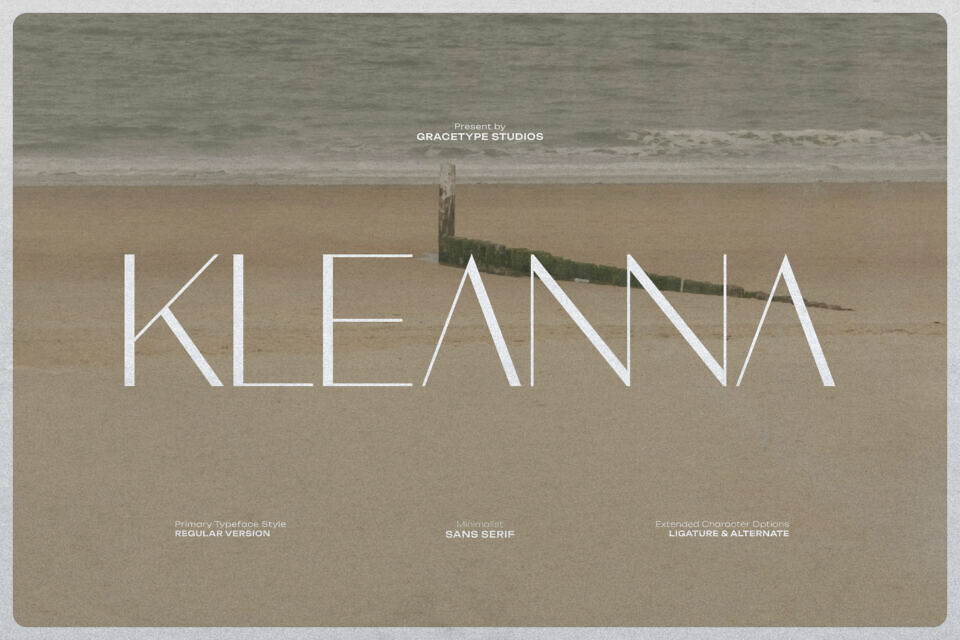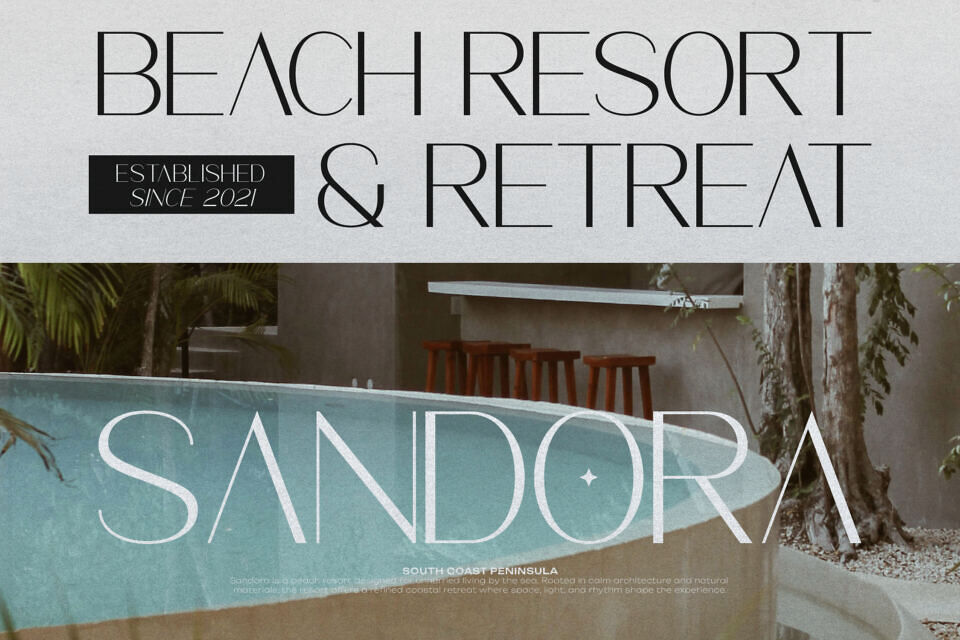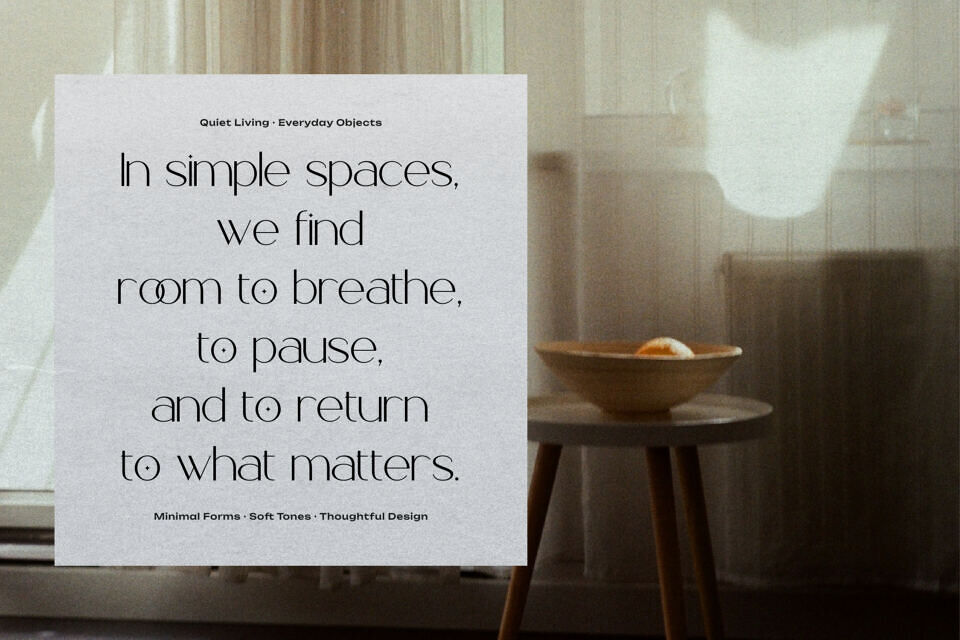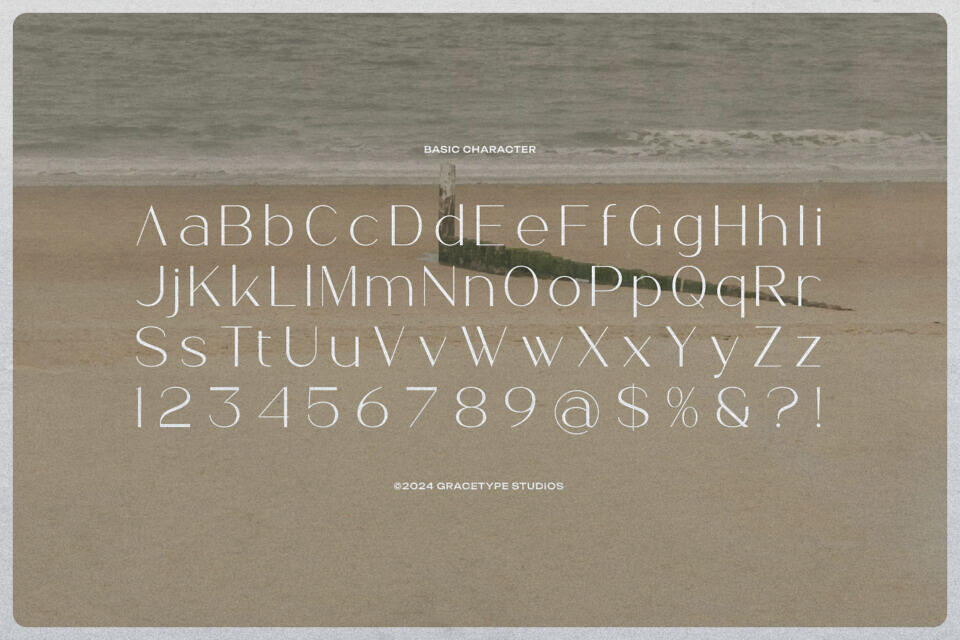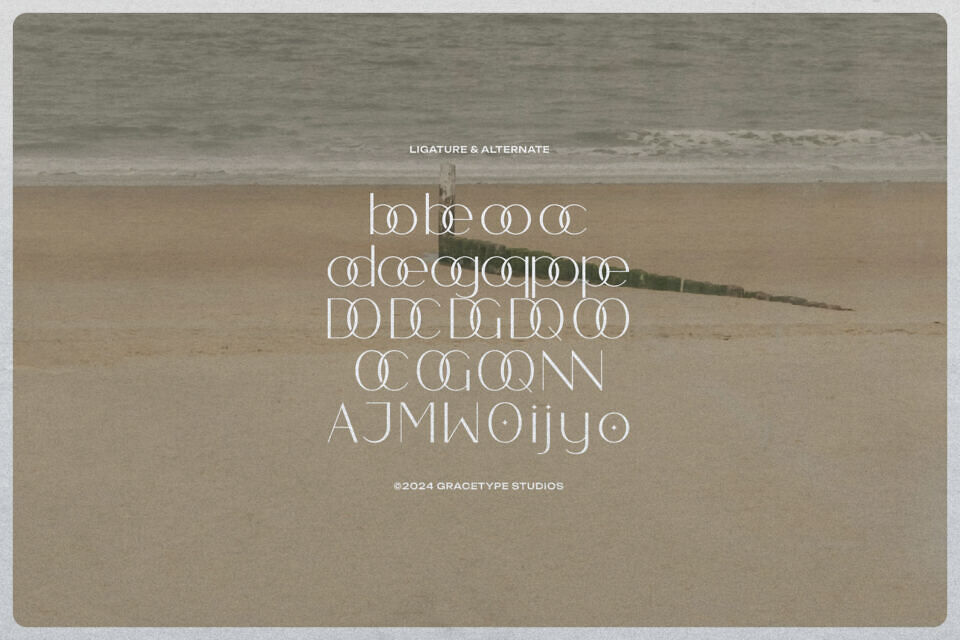
Kleanna Font
Discover the power of understated elegance with the Kleanna font, a minimalist sans-serif typeface that defines modern sophistication. This Kleanna typeface features tall, razor-thin lines and geometric precision, making it an exceptional choice for architecture-inspired branding, luxury editorial layouts, and high-end fashion design.
The Kleanna font offers extended character options, including artistic ligatures and alternates, allowing you to create a truly bespoke look for your logos and headlines. It’s clean, open letterforms ensure a “breathable” aesthetic that thrives in minimalist and contemporary environments.